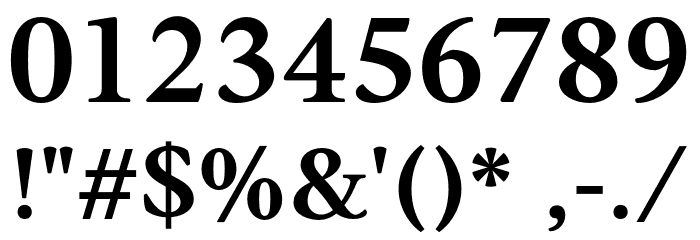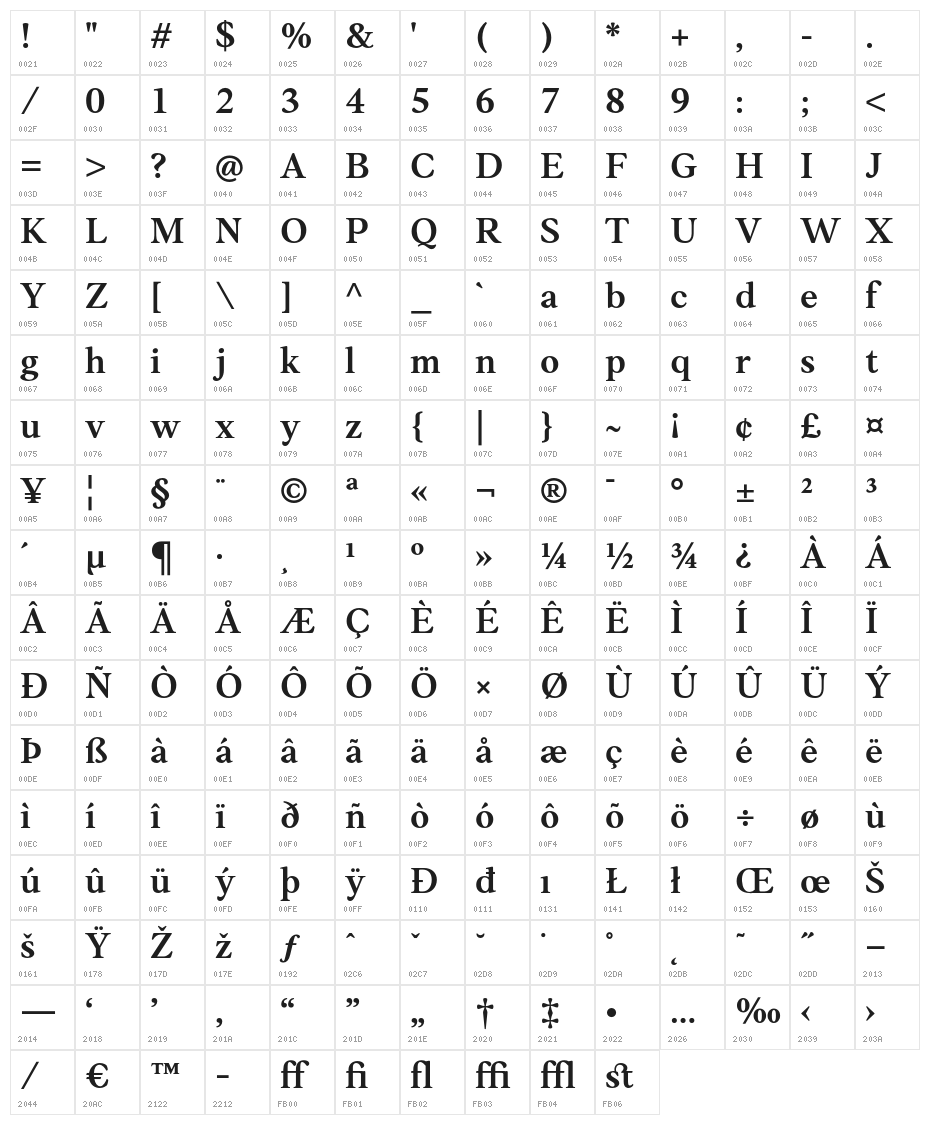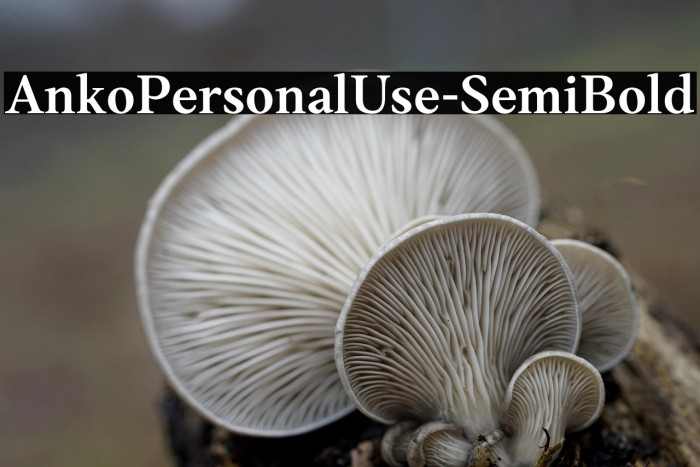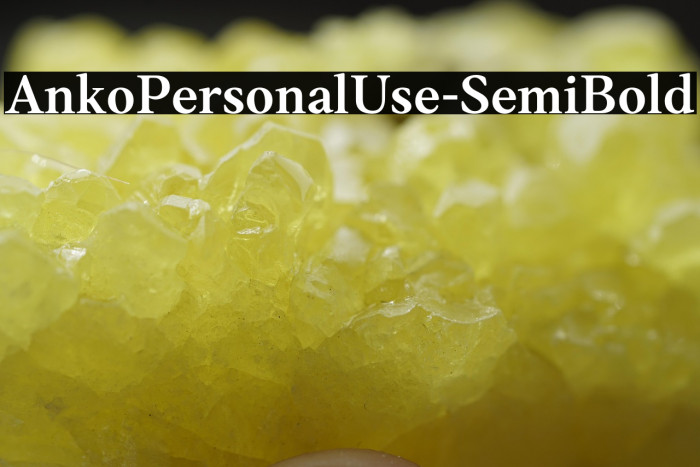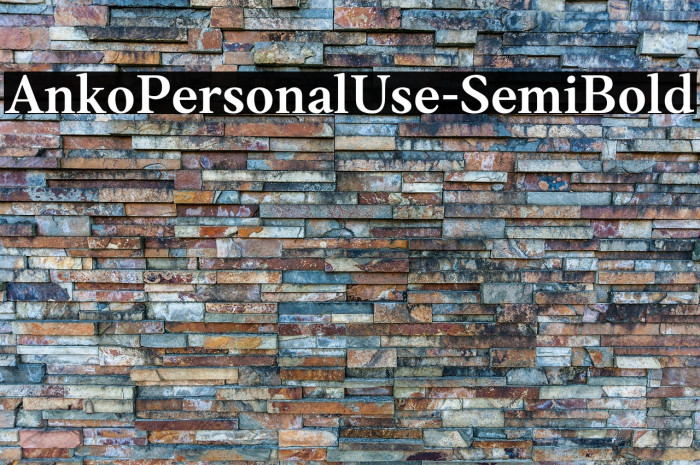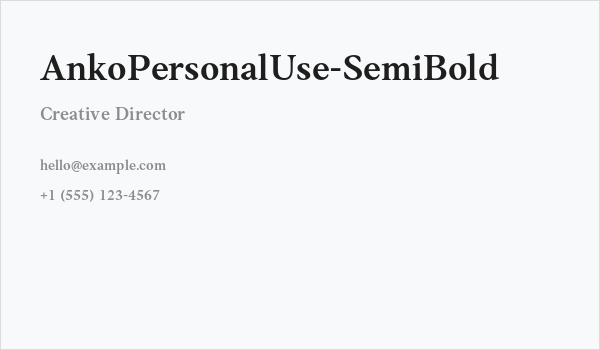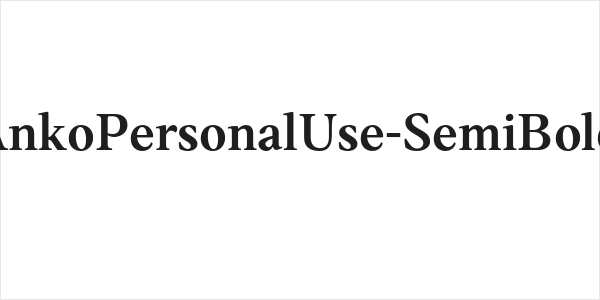
AnkoPersonalUse-SemiBold Font
AnkoPersonalUse-SemiBold Description
This font exhibits a classic serif style with a semi-bold weight, providing a strong yet elegant appearance. The uppercase letters are well-proportioned, with distinct serifs that enhance readability. The lowercase letters maintain a consistent style, with smooth curves and a balanced structure. The numerals are clear and legible, making them suitable for various applications. Special characters are included, offering versatility for different types of text. The overall design is timeless, making it suitable for both traditional and modern projects.